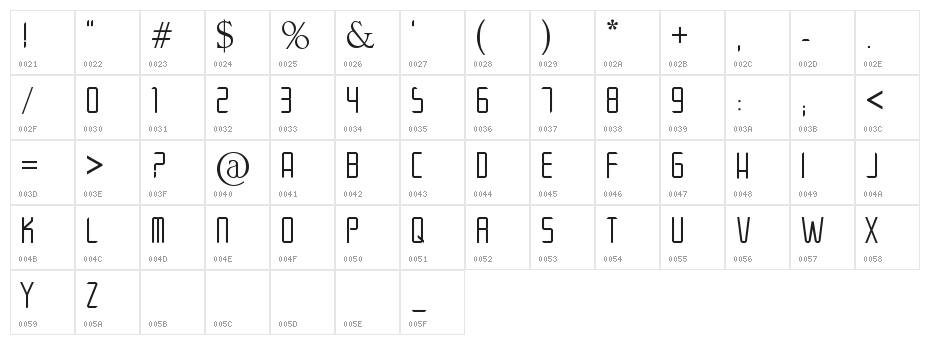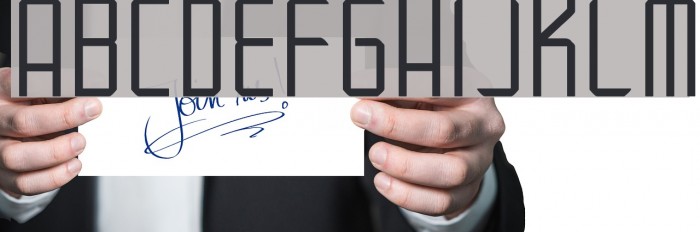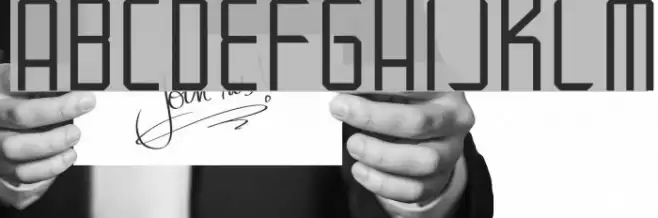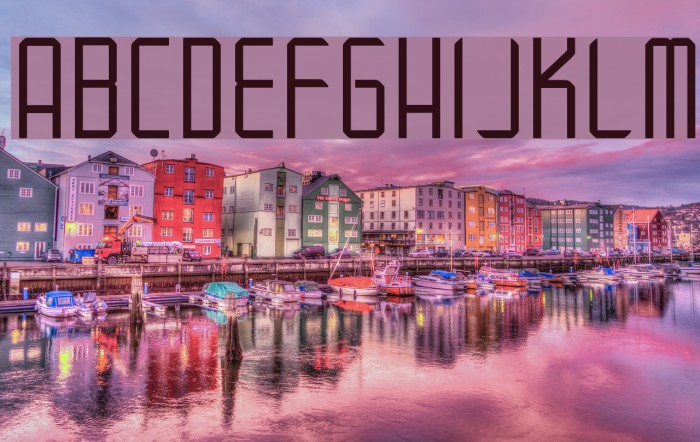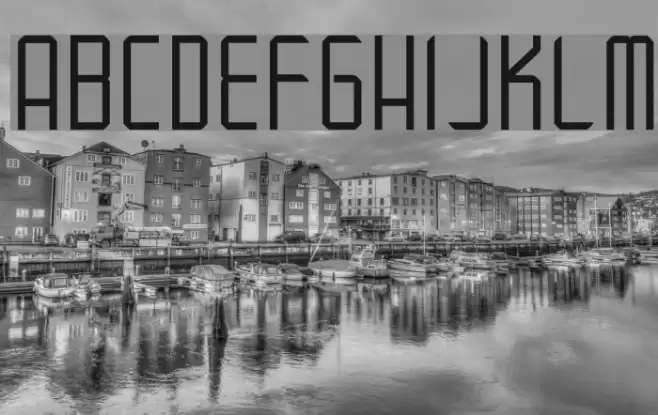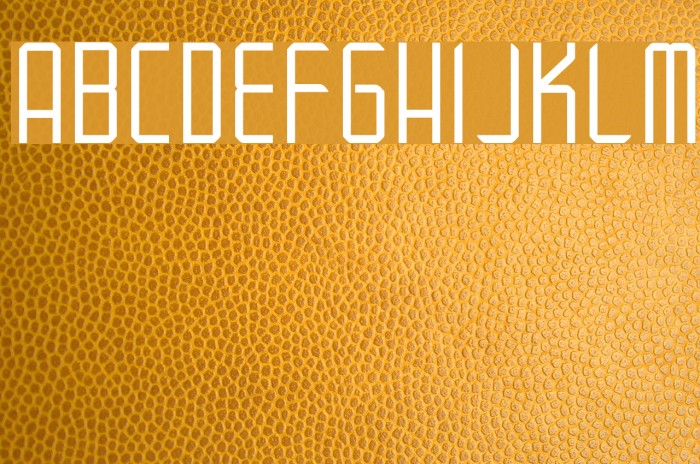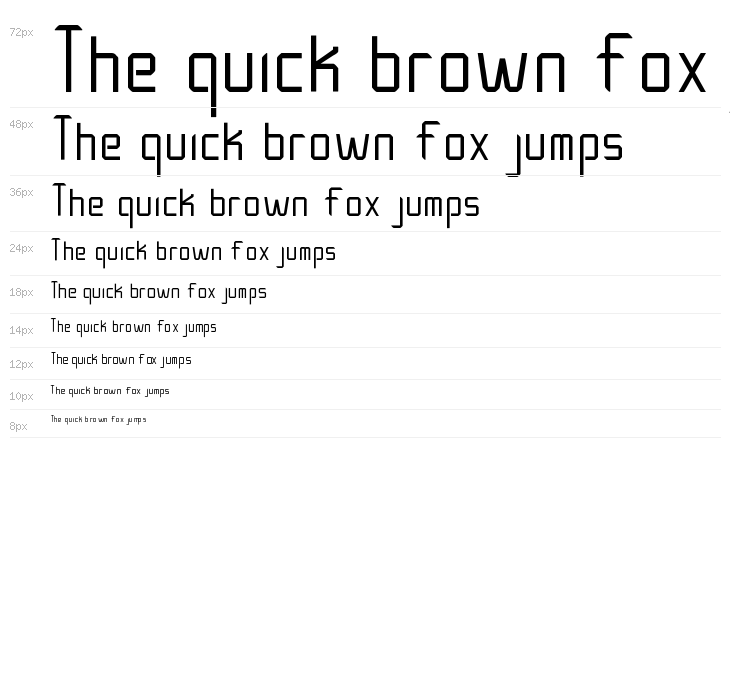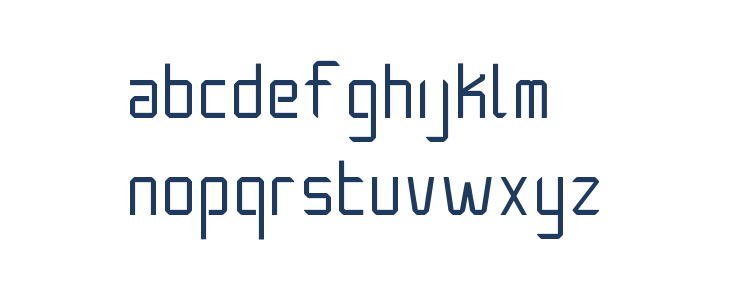
Architek Font
Architek Description
This font features a geometric and architectural style, characterized by its clean lines and structured form. The uppercase letters are tall and narrow, with a consistent stroke width that gives a modern and technical appearance. The lowercase letters maintain the same geometric precision, offering a cohesive look across different text sizes. The numerals are equally structured, ensuring readability and uniformity. Special characters are designed to match the overall aesthetic, making this font suitable for various applications where a modern, technical look is desired.
| Use Case | Headlines, Logos, Technical documents |
| Proposed Projects | Ideal for architectural designs, technical documents, modern branding, and digital interfaces. |